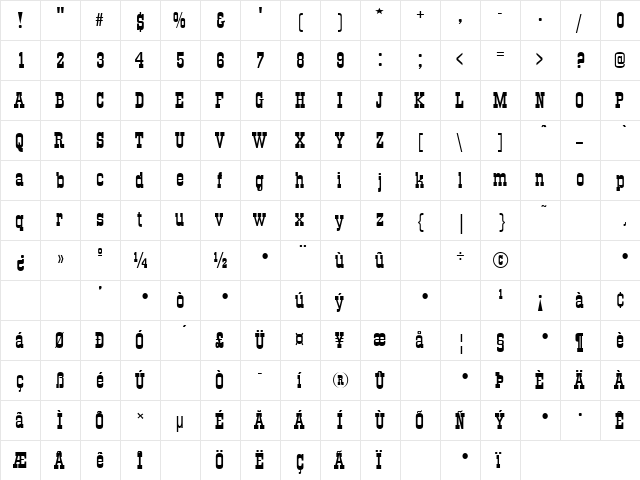
All Night 12 Regular
Design Context for All Night 12 Typeface
All Night 12 offers clean, dependable letterforms without strong stylistic allegiance, making it a practical choice for designers who need flexibility.